The Ultimate Guide to the Best Insta Fonts & Aesthetic Styles
Welcome to the definitive resource for standing out on social media. Using unique insta fonts is the quickest and most effective way to grab attention, elevate your profile’s aesthetic, and communicate your brand’s personality.
These special charactersโoften called ig fonts or lettertypes are the secret weapon of top creators, transforming plain text into a captivating visual element in your bio, captions, and stories. We’re here to show you exactly how to find and use the best aesthetic font styles instantly.
Aesthetic Font Categories: Finding Your Perfect Lettertypes
To truly master your online aesthetic, you need to understand the different styles available. Whether you prefer a clean, minimal look or a dramatic, retro vibe, the perfect lettertypes are waiting. We’ve broken down the most popular categories that creators use today.
Minimalist & Clean Insta Fonts for a Professional Profile
These include sleek, geometric sans-serif looks (like ๐ฆ๐๐ก๐ฆ ๐๐ข๐๐) or simple, small-caps styles. They are perfect for brands or individuals who want a sophisticated, clean aesthetic. Minimalist ig font choices are often the most readable for long insta captions.
Aesthetic Tulisan (Script & Calligraphy) for Captivating Captions
The `tulisan` (the Indonesian word for ‘writing’ or ‘script’) styles, such as ๐ฒ๐๐พ๐๐พ๐๐ ๐ฎ๐๐๐๐ or ๐๐ฏ๐๐จ๐ฑ๐ฒ๐ฏ, add a dramatic flair. These **insta fonts** are highly effective for short-form content, such as attention-grabbing headlines in Stories or a punchy line in your caption. Use them sparingly to maintain readability.
Retro & Vaporwave IG Font Styles for TikTok Crossovers
If your vibe is Y2K, Vaporwave, or another nostalgic aesthetic, youโll want to utilize glitch text, box styles, or mirrored text. These ig font styles perform incredibly well on platforms like TikTok and translate perfectly to Instagram to match that trendy, digital-art feel.
Mastering the Insta Bio & Captions
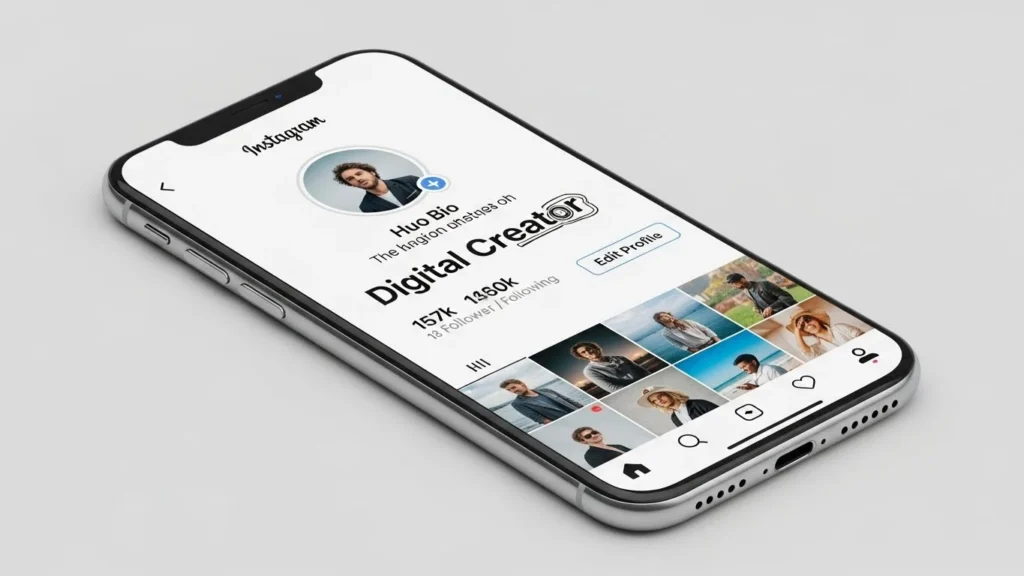
Maximizing the Insta Bio with Perfect Fonts
Your Insta bio is prime real estate. Since the character limit is tight, using a visually interesting font can make your call-to-action or personal description pop.
This is where fuentes para bio (fonts for bio) and striking (name) changes get the most attention. Choose readable options, reserving the most decorative styles for key phrases or emoji replacements.
The Best Fonts for Instramgram (Stories & Reels)
While Instagram provides built-in fonts for Stories and Reels, you can achieve true customization by finding and using special Unicode characters. Create text that perfectly matches your video or photo aesthetic and then use the copy and paste method to drop the text into the platform’s native text editor. This is a pro-level trick for standing out in the feed.
Expert Tips: Readability, Reach, and Unicode
Why Your Custom Insta Fonts Don’t Always Look Right: It’s important to understand that the insta fonts you generate are not true font files. They are special Unicode characters (symbols and glyphs) that look like custom text. This is why they work everywhere! However, because they are symbols, some screen readers or older devices may not interpret them correctly. Always test your chosen ig font on multiple devices to ensure good accessibility.
Aesthetic vs. Reach: While decorative lettertypes look cool, reserving them for headlines or your bio is best. For long captions, stick to highly readable fonts like default system fonts to maximize comprehension and prevent users from bouncing away from your content. Use the aesthetic styles strategically for emphasis.